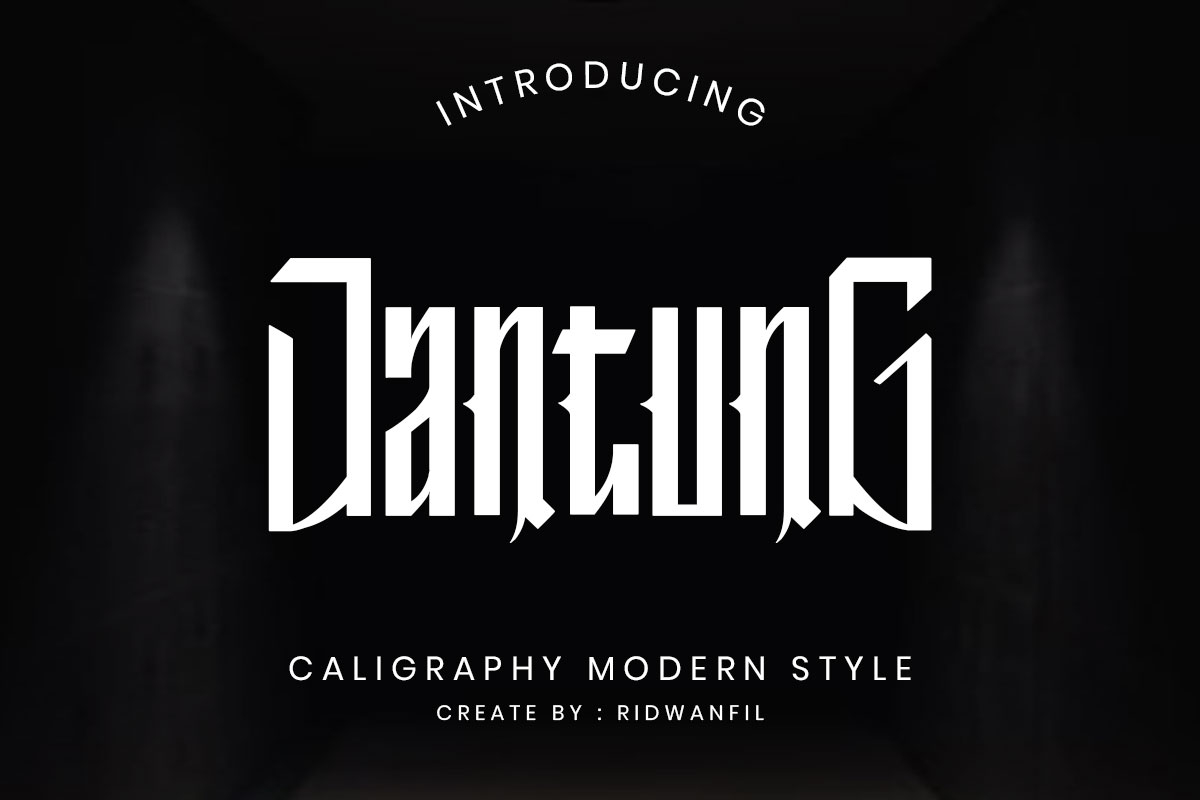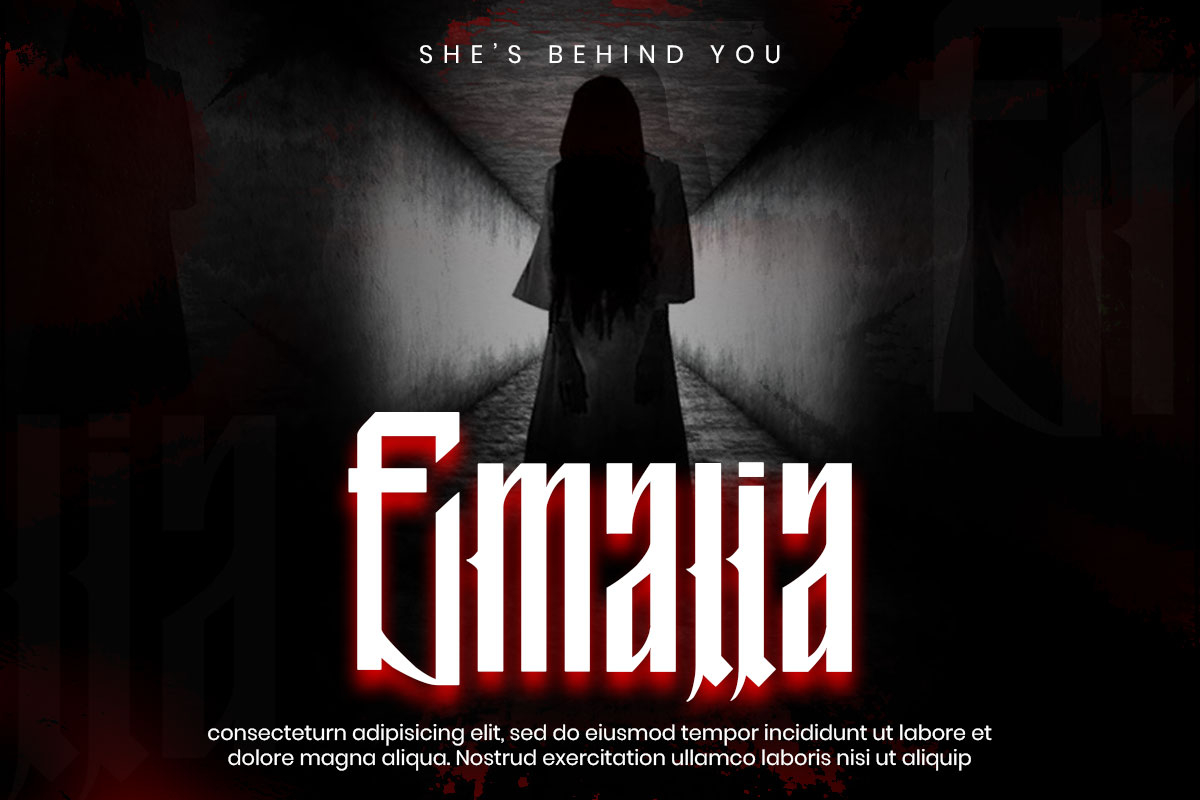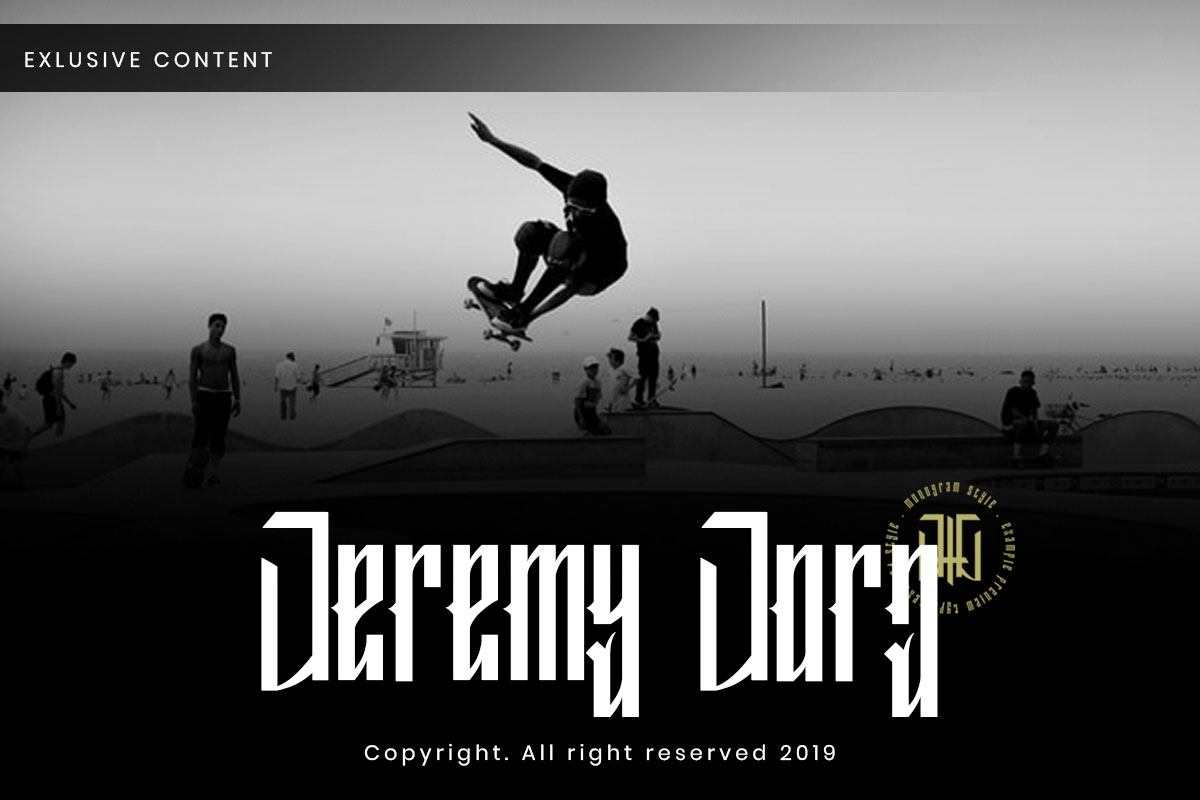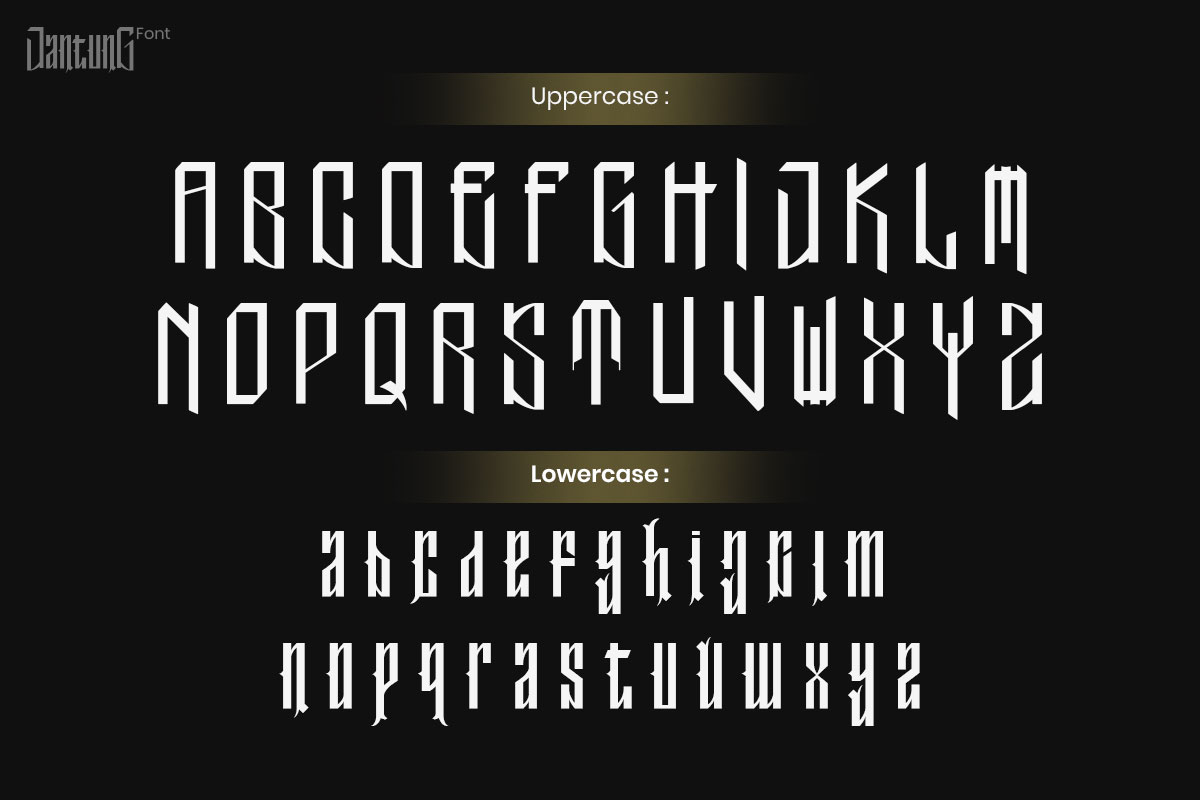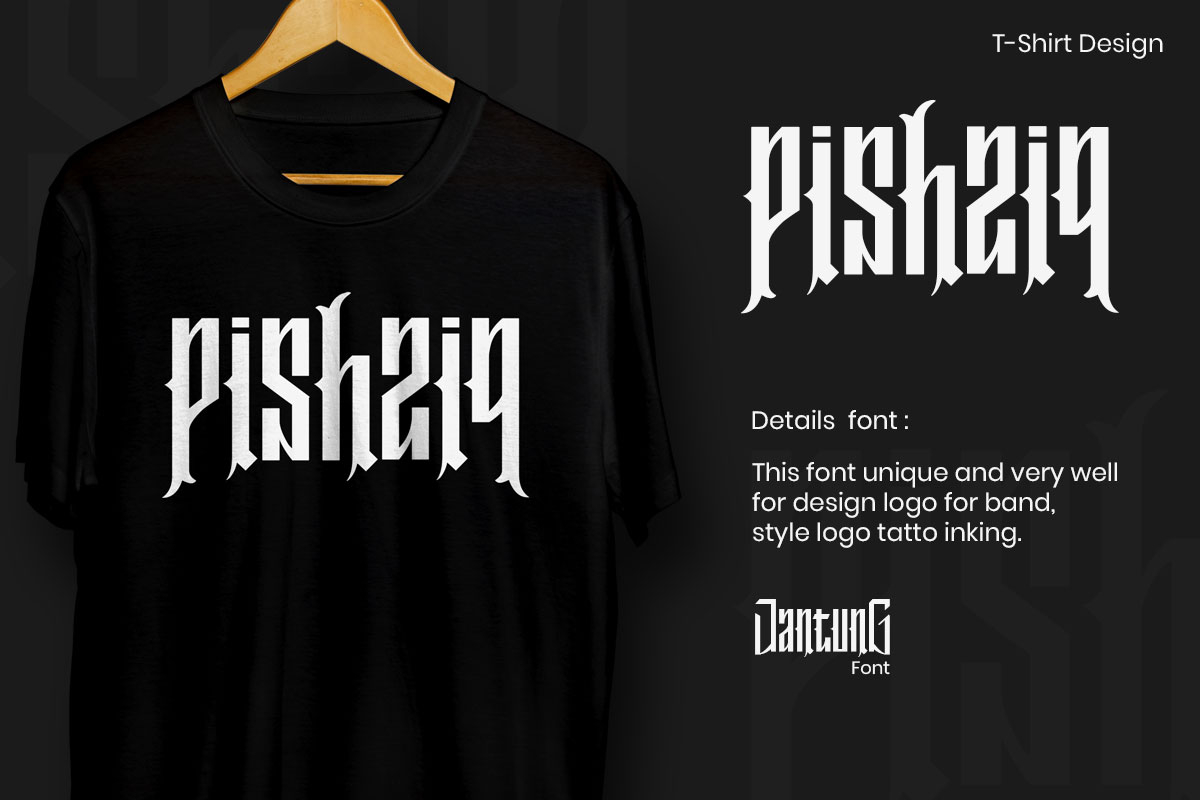
HomeBlackletter FontsJantung Font Blackletter Fonts Jantung Font FacebookXPinterestWhatsApp Jantung Font Poster 2 Jantung Font Poster 3 Jantung Font Poster 4 Jantung Font Poster 5 Jantung Font Poster 6 Jantung Font Poster 7 About Jantung Font Jantung is a unique and bold blackletter font with a classic feel. DOWNLOAD NOW People also explored Funny Hit Font Monogram Cute Caliga Font Omni Serif Font Foresight Font Hello Betty Font Radiant Script Font Bradley Font Give You Strength Font Treath Font 358 0 TagsJantung Font Previous articleHomewrecks FontNext articleAihet Script Font LEAVE A REPLY Cancel reply Comment: Please enter your comment! Name:* Please enter your name here Email:* You have entered an incorrect email address! Please enter your email address here Website: Save my name, email, and website in this browser for the next time I comment. Personal Use Free Cosmos Personal Use Free Read more about this font Strasua Personal Use Free Read more about this font Baby Mollusca Personal Use Free Read more about this font White Rose Personal Use Free Read more about this font BLOG Where to Buy American Fonts Online in 2024 Where to Buy American Fonts Online: The Ultimate Guide for 2024 Looking for the perfect American font to elevate your design projects? You're in the... Modern Sans-Serif Fonts That Brands Love in 2025 5 Fonts That Will Dominate Design Trends in 2026 Free vs Paid Fonts: Why Investing in Premium Fonts Is Worth It